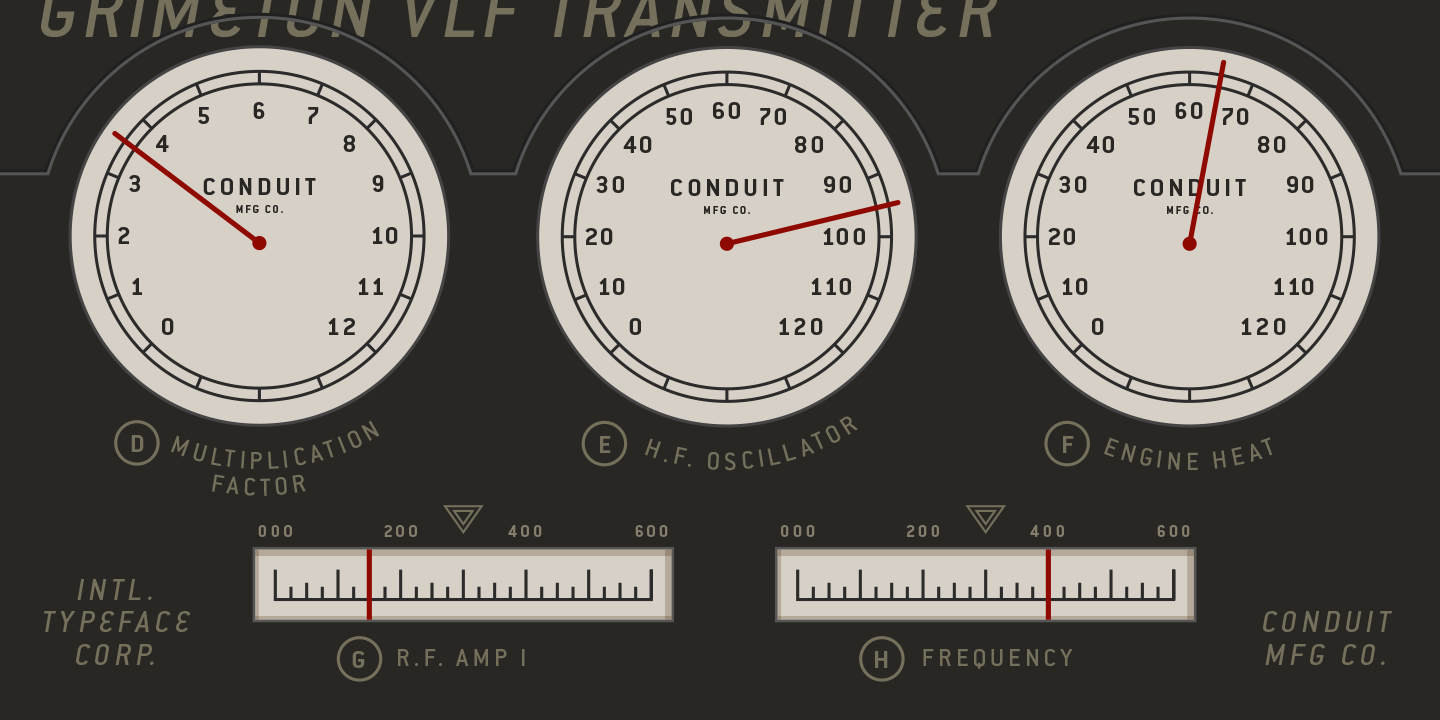
ITC Conduit Font is a powerful and no-nonsense sans-serif typeface, engineered for maximum impact and exceptional readability in demanding environments. This robust font is perfectly suited for applications where clarity, authority, and modern strength are paramount. Imagine ITC Conduit Font gracing industrial signage, providing clear and direct messaging in public transportation systems, or enhancing the branding for engineering and construction firms. It excels in digital interfaces that require immediate comprehension, such as dashboards and data visualization, and is ideal for high-impact advertising, sporting event branding, and technical manuals. Its strong, geometric forms and unwavering presence also make it an excellent choice for headlines, logos, and any design that needs to convey reliability and efficiency.
What makes ITC Conduit Font so exciting is its unpretentious yet incredibly effective design. It strips away unnecessary embellishments to deliver information with unparalleled directness and legibility. This font projects an aura of unwavering confidence, practical functionality, and modern robustness, making it an excellent choice for brands and individuals who want to communicate a sense of strength, clarity, and dependable performance. ITC Conduit Font truly performs as a versatile workhorse, offering both aesthetic integrity and robust functionality that can elevate any project, from serious corporate communications to impactful public announcements.
ITC Conduit Font typically boasts a comprehensive family, providing designers with significant flexibility. You can expect a wide array of weights, ranging from a crisp light to a commanding black, along with corresponding italic styles. Many ITC Conduit Font families also include condensed versions, offering even more options for space-saving headlines or dense information displays. This rich selection ensures that ITC Conduit Font can seamlessly handle virtually any typographic challenge, allowing for harmonious visual hierarchies and consistent branding across all your projects, from prominent headlines to detailed body text in demanding applications.